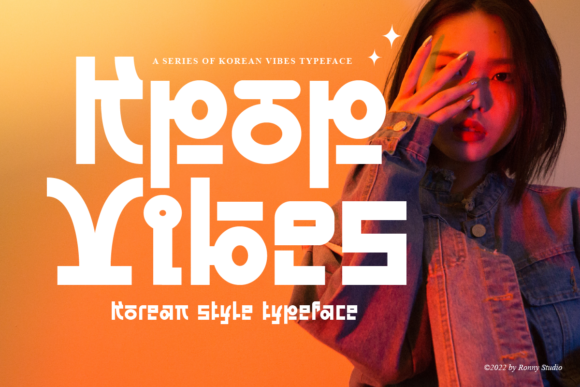
Welcome to the world of Kpop Vibes Font, the ultimate display font family that's capturing the hearts of music lovers worldwide. Inspired by the vibrant and captivating energy of Korean pop culture, Kpop Vibes Font is the perfect choice for those seeking a unique and expressive font to elevate their creative projects.
With its bold strokes and captivating curves, Kpop Vibes Font exudes an infectious energy that's sure to leave a lasting impression. Its dynamic design is a testament to the passion and creativity that fuels the Korean pop industry, making it an ideal choice for projects that demand attention and personality.
Immerse yourself in the rich tapestry of Korean culture as you explore the diverse glyphs and ligatures that Kpop Vibes Font offers. Each character is meticulously crafted to convey the essence of Korean pop, from its mesmerizing melodies to its elaborate dance routines. Unleash your creativity and let the vibrant spirit of Kpop flow effortlessly into your designs.
Kpop Vibes Font is the perfect companion for music enthusiasts, graphic designers, and anyone looking to add a touch of Korean flair to their work. Its versatility extends beyond music-related projects, making it a stunning choice for branding, social media, marketing, and beyond.
As a PUA-encoded font, Kpop Vibes Font grants you effortless access to a world of glyphs and ligatures. With just a few clicks, you can incorporate intricate details and stunning flourishes into your designs, enhancing their visual appeal and leaving your audience spellbound.
Don't let your creative spirit be confined by ordinary fonts. Embrace the vibrant energy of Kpop Vibes Font and unlock a new realm of visual expression. Dive into the captivating world of Korean pop culture and let your designs radiate with passion and creativity.